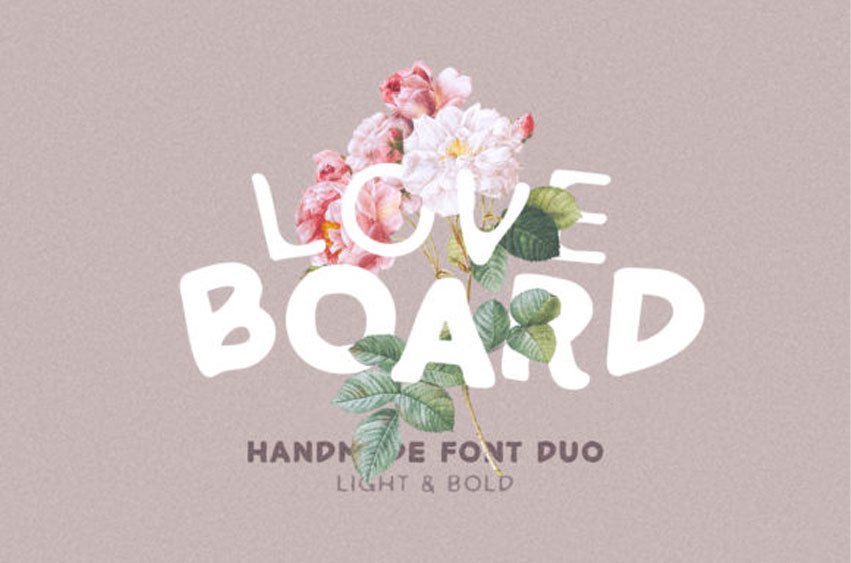
Love Board Font is a thick lettered and organic display font.
No matter the topic, this font will be an incredibly asset to your fonts’ library, as it has the potential to elevate any creation.